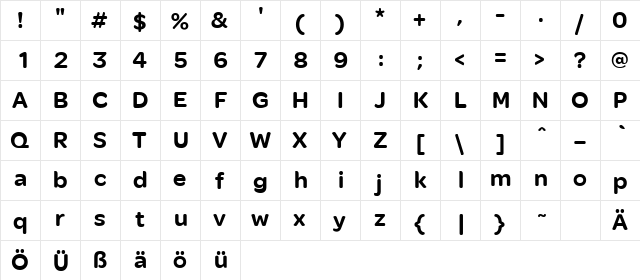
SEOptimistBlack Regular
Design Context for SEOptimistBlack Typeface
SEOptimistBlack takes a measured approach to typography — its balanced proportions and neutral character make it a reliable workhorse for both digital and print work.